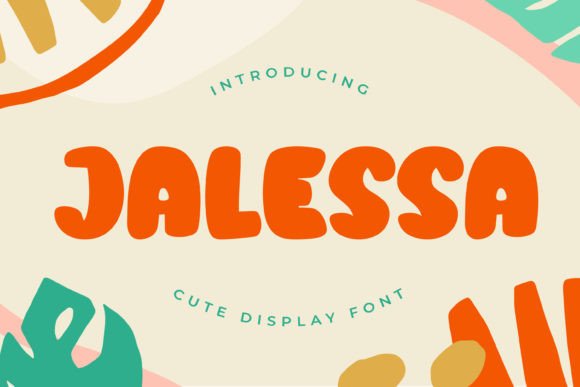
Journey into the enchanting realm of Jalessa Font, where creativity and charm intertwine to bring life to your digital expressions. Immerse yourself in the captivating world of this display font, meticulously crafted to captivate and inspire. Jalessa's playful and whimsical nature dances across the screen, leaving a trail of visual delight. Its easy-to-read curves and down-to-earth appeal create a sense of warmth and approachability, making it the perfect choice for a wide range of projects.
With Jalessa Font, your words take on a new life, transcending the boundaries of ordinary typography. Its versatility knows no bounds, allowing you to effortlessly elevate quotes, shirt designs, websites, branding, children’s designs, blogs, logos, invitations, and more. Unleash your imagination and let Jalessa Font become your muse, transforming your creative visions into tangible masterpieces.
Step into a realm where fonts are not just letters, but works of art. Jalessa Font beckons you to explore the depths of your creativity, inviting you to craft designs that resonate with your audience. Its ability to connect with emotions and leave a lasting impression makes it an invaluable asset for any designer or creative professional.
Discover the power of Jalessa Font today and embark on a creative journey filled with endless possibilities. Let your imagination soar as you witness the transformative impact of this remarkable font.